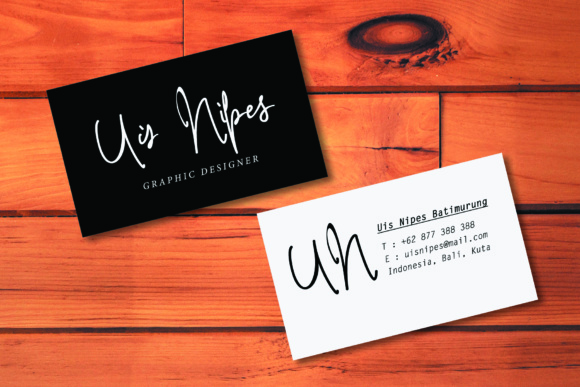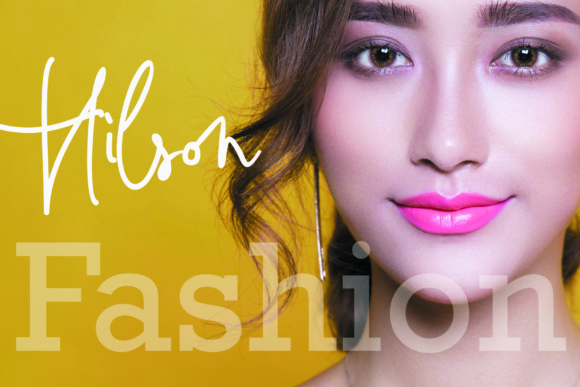
Pink Script Font
db-ku.com - Script & Handwritten -- The Pink Script is a fashionable and quirky new handwriting font with some sexy and stylish extras. It was created to look as close to a natural handwritten script as possible by including lots of ligatures, and a full set of lowercase alternates.